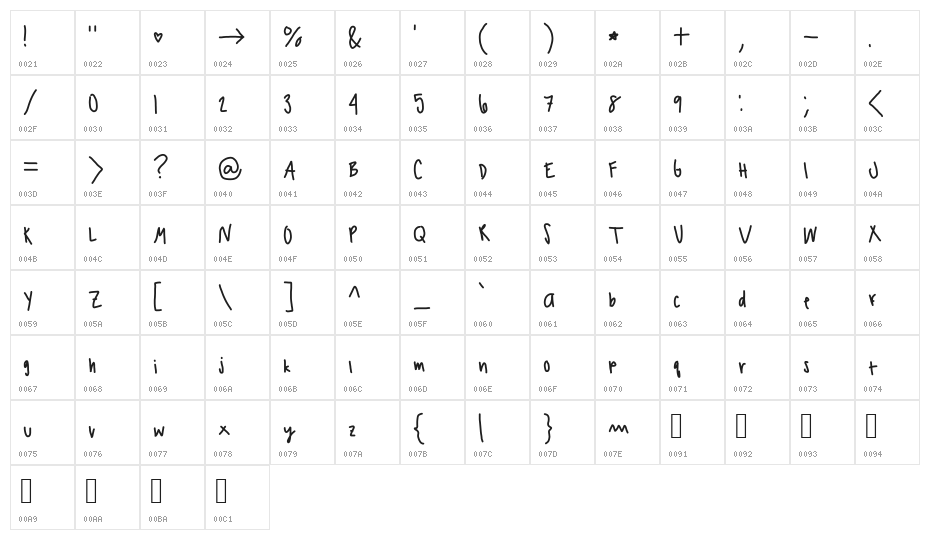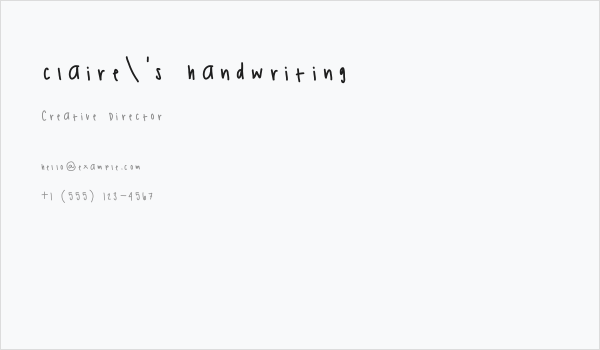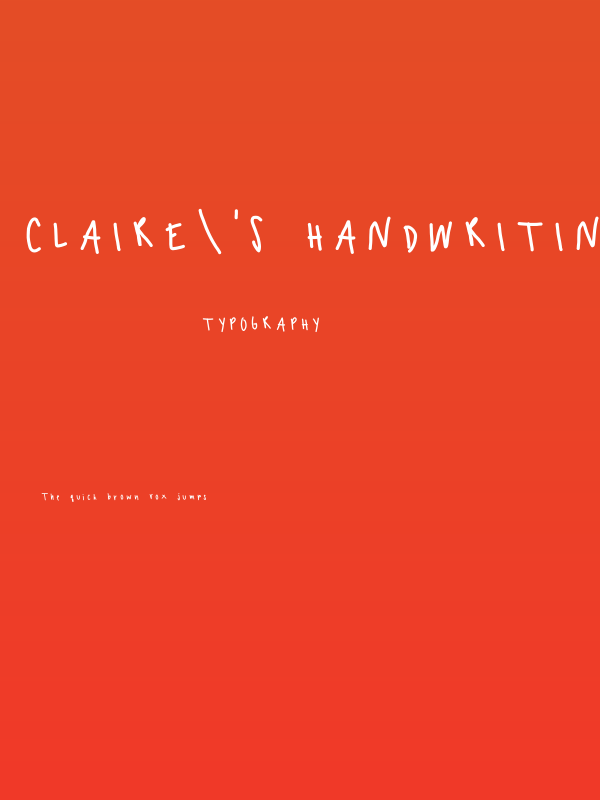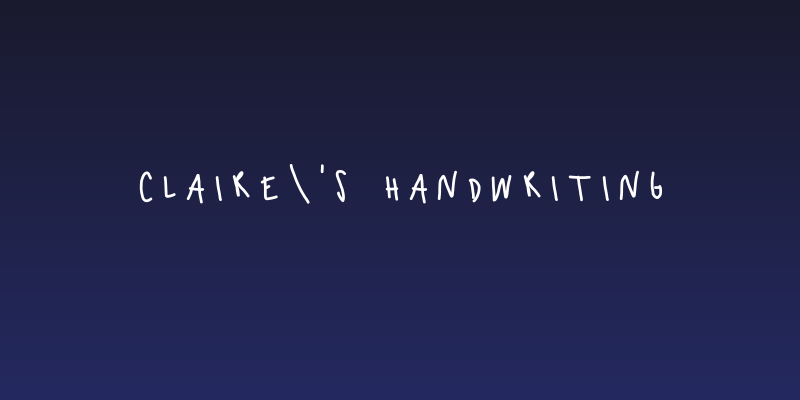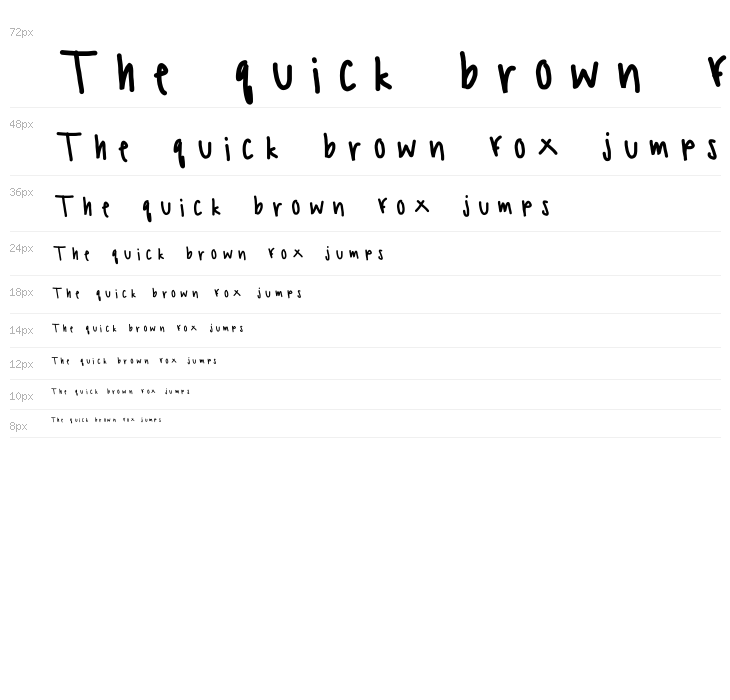
claire's handwriting Font
claire's handwriting Description
This font exudes a casual and personal touch, reminiscent of authentic handwriting. The letters are slightly irregular, adding to the charm and uniqueness of the style. The strokes are consistent in weight, giving it a balanced appearance. The uppercase and lowercase letters maintain a playful and approachable feel, making it ideal for informal and creative projects. The numerals and special characters are crafted with the same hand-drawn aesthetic, ensuring a cohesive look across all text elements. This font is perfect for projects that require a personal, friendly, and informal tone.
| Proposed Projects | Ideal for greeting cards, personal blogs, casual invitations, and creative branding. |